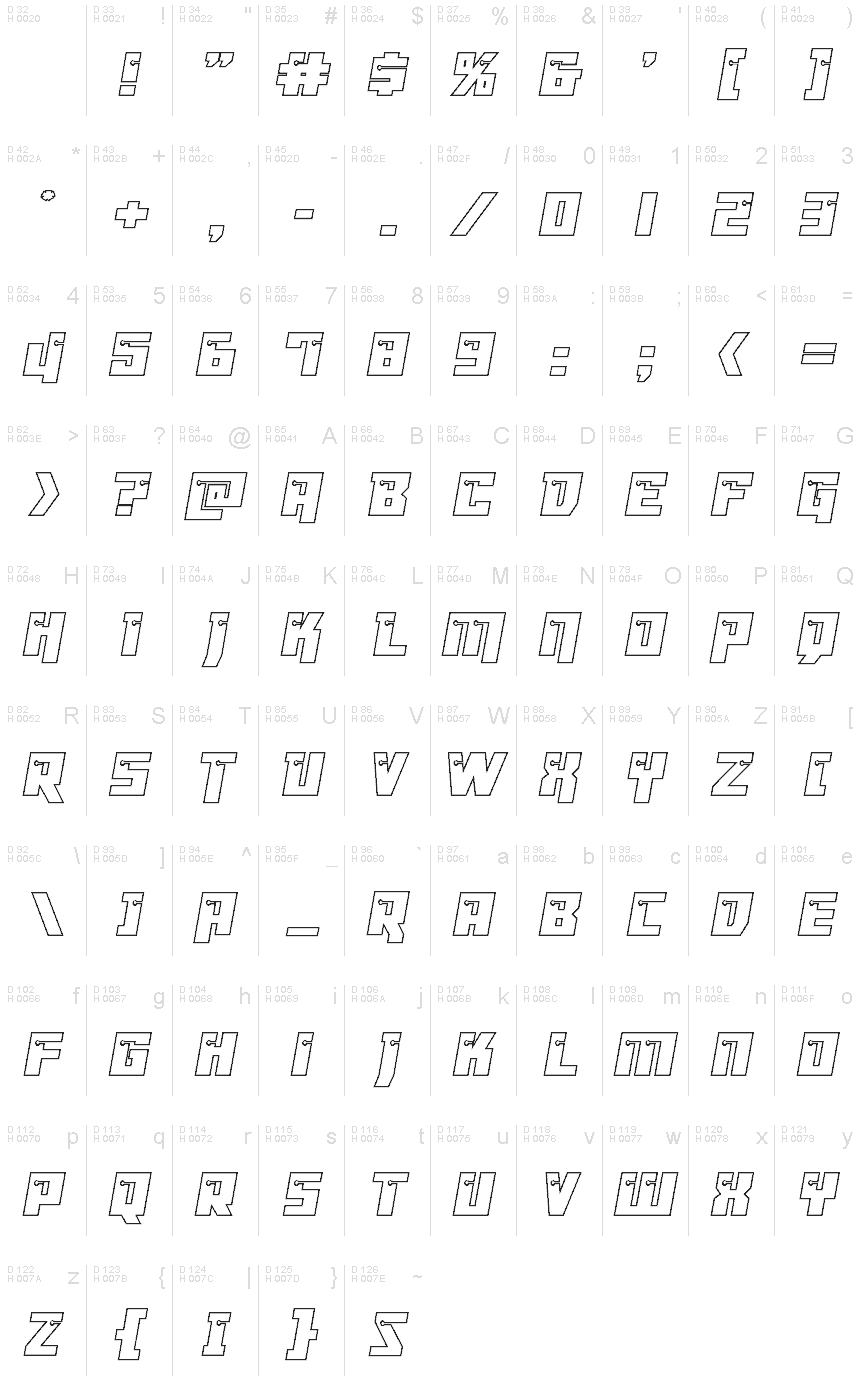
Dangerbot Outline
Dangerbot Outline font by Iconian Fonts is a futuristic bold display typeface with a geometric edge and an unmistakable technologic vibe. It carries out its key objectives of modernism and minimalism through its appearance where complex and edgy designs exist. This free techno display font is narrow which mixes with the carefully designed outlines for one ultimately effective font.
Used in all-capital letters, Dangerbot can be quite impactful in headlines, the first page of magazines, movie covers, video games graphics, advertisements, or store signs. Users can feature it on social media posts prepared with After Effects or by simply using Photoshop.